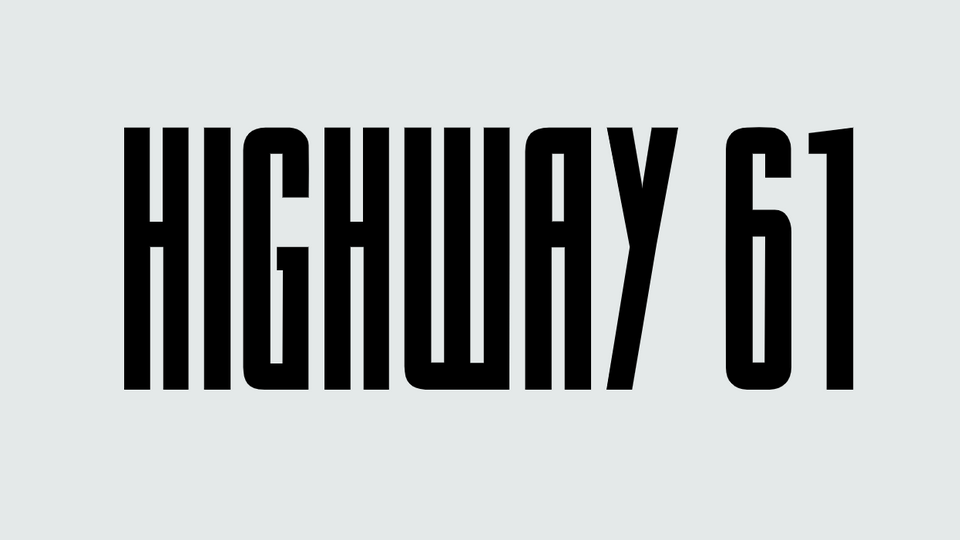
Download Sacco typeface, an all-caps sans serif display font family available in six condensed styles, ideal for large format and headlines. Sacco’s asymmetrical vertical metrics, steep angled strokes, and signature opposing rounded caps provide a punchy rhythm to longer words, and a consistent flow across the vowels and consonants.
Designer: Chris M. Hughes